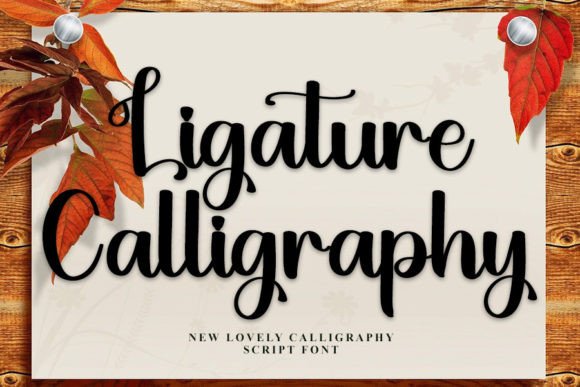
Embark on a Typographic Journey with Ligature of Calligraphy: A Font that Captures Timeless Elegance
In a world saturated with digital designs, authenticity and individuality reign supreme. Ligature of Calligraphy, a script font family born from the fusion of tradition and modernity, invites you to elevate your creative expressions to new heights. Inspired by the enduring beauty of classic calligraphy, this font is meticulously crafted to lend an air of timeless elegance to your design projects.
With Ligature of Calligraphy, you hold the key to unlocking a world of typographic possibilities. Its graceful strokes, reminiscent of a skilled calligrapher's hand, infuse your designs with a touch of sophistication and charm. Whether you're crafting logos, branding materials, wedding invitations, or social media posts, this font will effortlessly elevate your creations, leaving a lasting impression on your audience.
Immerse yourself in the boundless versatility of Ligature of Calligraphy. Its carefully designed characters seamlessly adapt to a wide range of design styles, from classic and vintage to modern and minimalist. Unleash your creativity and experiment with different combinations to discover endless possibilities. Let your designs exude a timeless allure that resonates with your audience on a deeper level.
Step into the spotlight with Ligature of Calligraphy, the font that empowers you to make a bold statement. Its intricate ligatures and swashes add a touch of playfulness and dynamism, transforming ordinary text into captivating works of art. Capture the attention of your readers and leave them spellbound with your visually striking designs.
Join the ranks of discerning designers who recognize the transformative power of Ligature of Calligraphy. This font is more than just a collection of characters; it's an invitation to embark on a typographic journey where elegance, versatility, and impact converge. Elevate your design portfolio, captivate your audience, and leave an indelible mark in the world of visual communication.